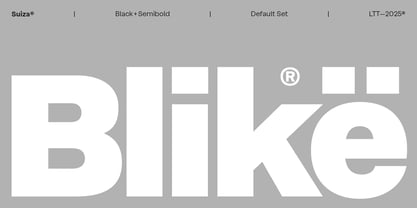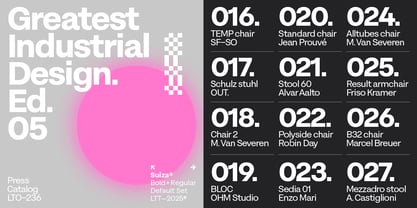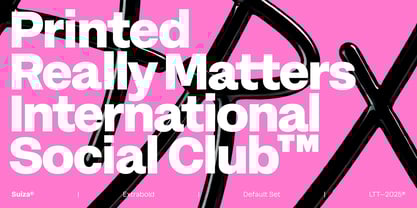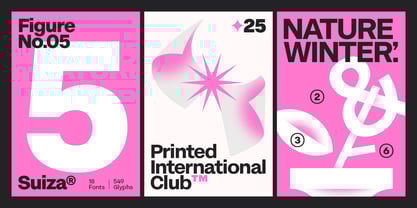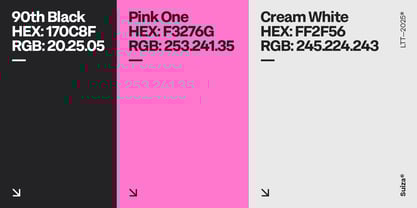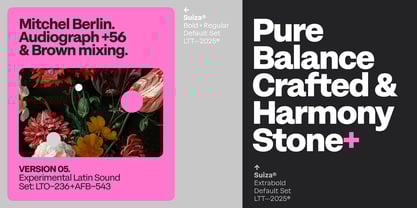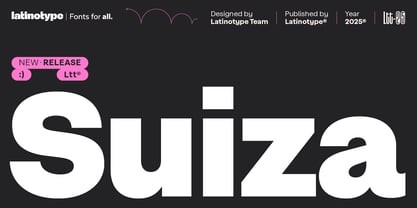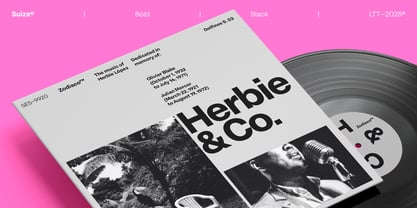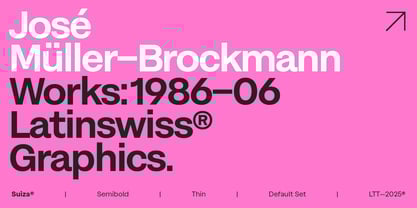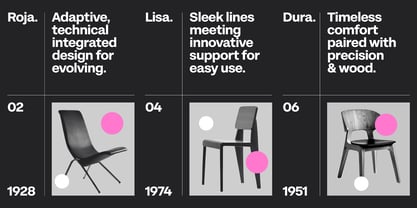
Suiza
by Latinotype
The Suiza Font Family was designed by Latinotype Team and published by Latinotype. Suiza contains 18 styles and family package options. More about this family
Suiza is a contemporary sans-serif typeface that combines versatility with a rational, modern character. Rooted in the Swiss typographic tradition of the 1960s, it blends classic precision with a fresh, dynamic sensibility.
Designed by the Latinotype team, Suiza harmonizes the geometric clarity and functionality of international typography with the warmth and expressiveness of Latin design. Featuring 18 weights and 593 glyphs, it boasts a balanced structure, clean terminals, and sharp, precise cuts—enhancing its clarity and confident presence.
Drawing inspiration from timeless references like Helvetica and the iconic New York subway signage, Suiza reinterprets this legacy of order and legibility. The result is a typeface that maintains the rigor of its predecessors while introducing a flexibility and expressiveness that make it ideal for a wide range of applications.